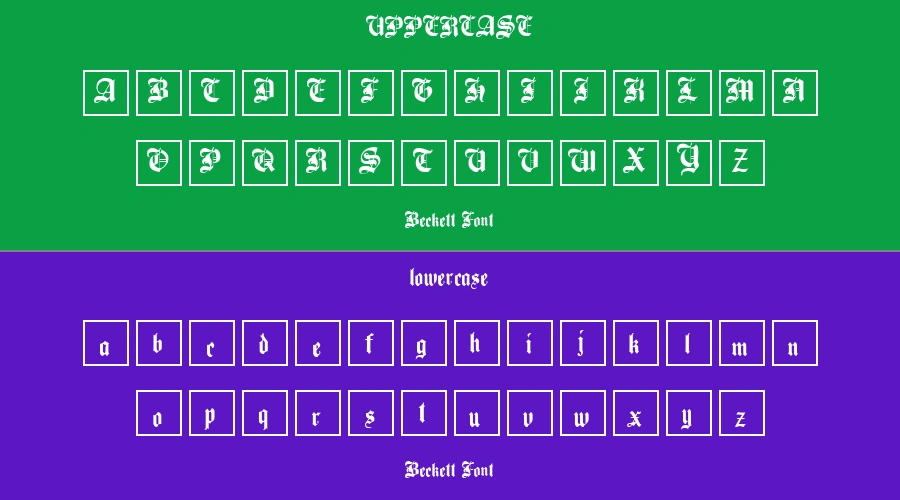
About Beckett Font
Beckett Font embodies typographic excellence through its masterful combination of transitional forms and emotional appeal. Created for print publications, this typeface delivers exceptional clarity and design innovation across all applications. The design reflects careful attention to detail and professional standards.
Advanced capabilities include distinctive graceful transitions and versatile contextual alternates, giving designers creative control. When used in featured quotes, Beckett Font exhibits remarkable special effects. The harmonious balance between stem weight and technical innovation sets this typeface apart.